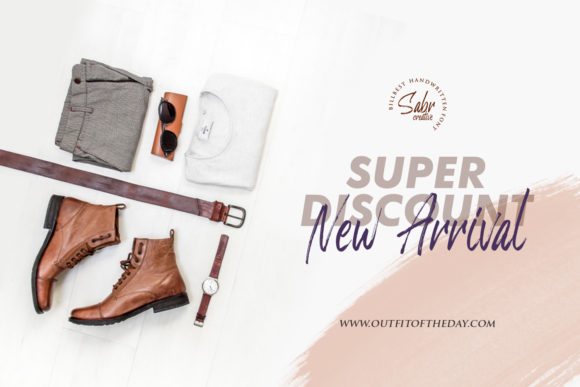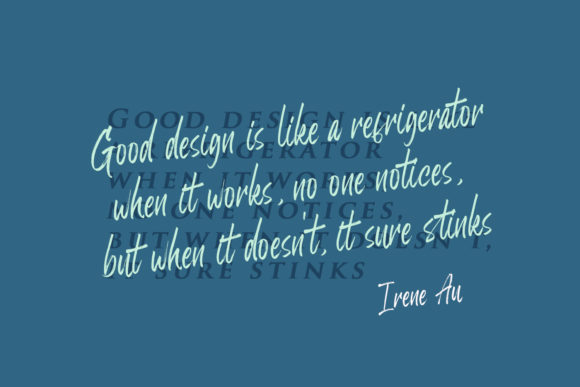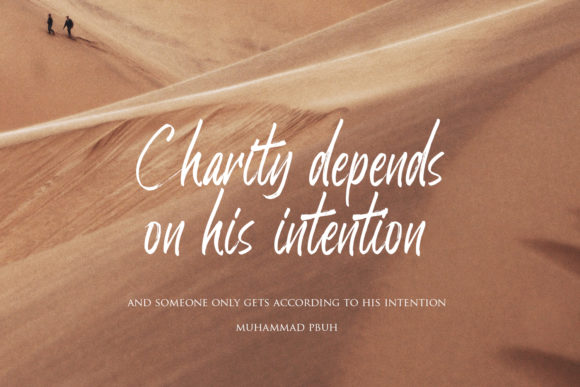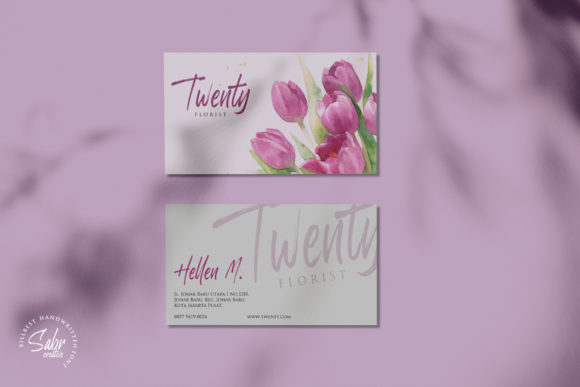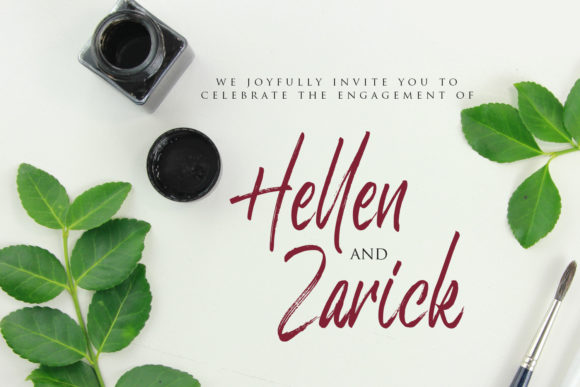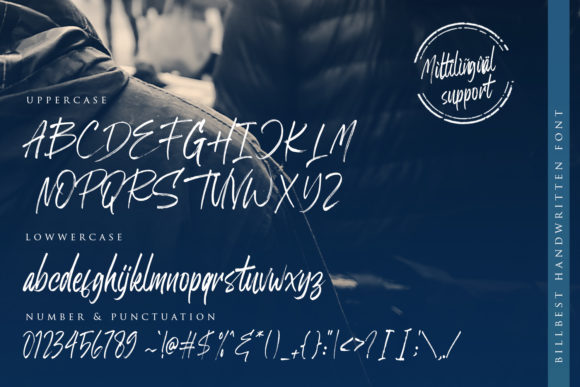
Introducing Billbest Font: Elevate Your Design with Bold and Modern Typography
In the world of design, typography plays a crucial role in conveying messages, expressing creativity, and capturing attention. For designers and crafters seeking a font that embodies both sophistication and modernity, Billbest Font is an exceptional choice. This fancy signature font is engineered to deliver an incredibly bold and modern font experience, making it an ideal addition to any design project.
The Billbest Font Advantage
Billbest Font stands out with its unique blend of familiarity and freshness. Its design is rooted in traditional typography, yet it incorporates modern twists that make it instantly recognizable. This distinctive approach allows Billbest to feel both classic and contemporary, providing designers with a versatile tool that can adapt to various creative needs.
Key Features of Billbest Font
- Bold and Modern Design: Billbest Font is crafted to make a statement. Its bold strokes and contemporary design elements ensure that any text stands out, demanding attention and exuding confidence.
- Familiar yet Fresh: The font’s design strikes a perfect balance between traditional typographic elements and modern flair, making it versatile for a wide range of design applications.
- High Versatility: Whether you’re working on a luxury brand logo, a sophisticated business card, or an eye-catching poster, Billbest Font adapts seamlessly, enhancing the visual appeal of your project.
Applications of Billbest Font
Billbest Font’s versatility makes it suitable for a multitude of design projects. Here are some of the areas where this font truly shines:
- Branding and Logos: Create a lasting impression with a bold and memorable logo that captures the essence of your brand.
- Advertising and Marketing Materials: Elevate your advertising campaigns with eye-catching posters, flyers, and digital ads that stand out from the competition.
- Stationery and Business Cards: Add a touch of sophistication and professionalism to your business cards, letterheads, and invoices.
- Packaging Design: Make your product packaging more appealing and noticeable on store shelves with Billbest Font.
- Digital Media: Enhance your website headers, social media graphics, and video overlays with a modern and bold typographic style.
Billbest Font is more than just a typeface; it’s a design statement. Its bold and modern aesthetic, combined with its versatility and ease of use, makes it an invaluable asset for designers and crafters looking to elevate their projects. Whether you’re aiming to create a stunning brand identity, compelling advertising materials, or captivating digital content, Billbest Font is poised to take your designs to the next level. Embrace the power of bold and modern typography with Billbest Font and unlock new creative possibilities.